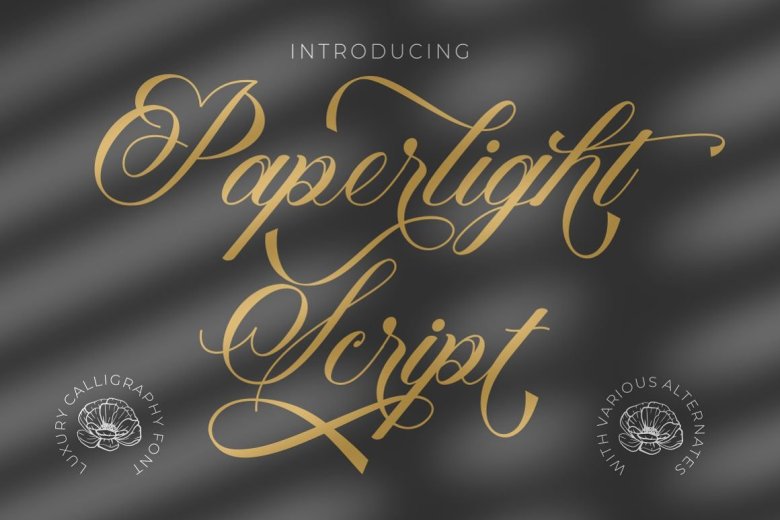
Paperlight Script Font
Paperlight Script. Paperlight Script is a Calligraphy Font with a Classic Style and a Touch of Elegance, inspired by the Handwriting of Ancient Manuscripts. This Calligraphy Harmony has the ability to lead the viewer with a luxurious and free impression. Paperlight Script font The text was created with meticulously high detail, smooth, and continuous lines.
Paperlight Script Calligraphy Font